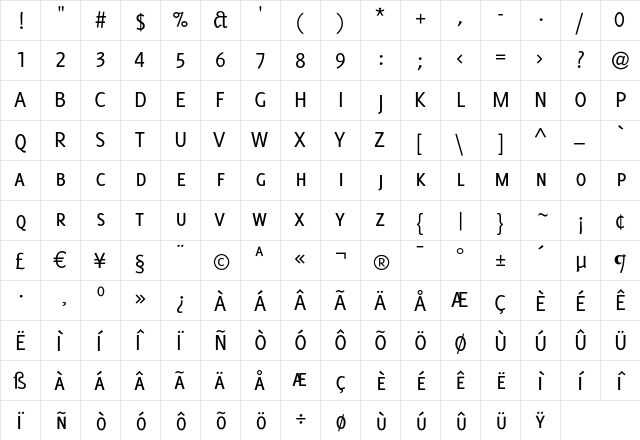
Delicious SmallCaps
Design Context for Delicious Typeface
Delicious offers clean, dependable letterforms without strong stylistic allegiance, making it a practical choice for designers who need flexibility.